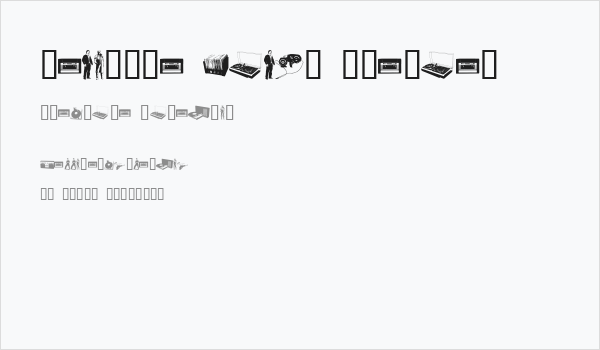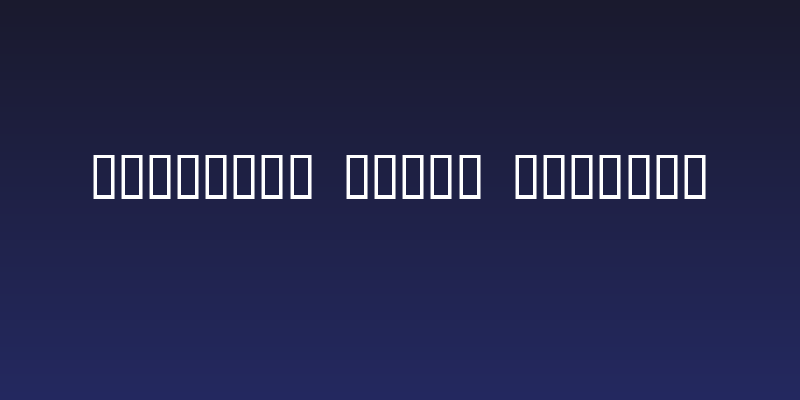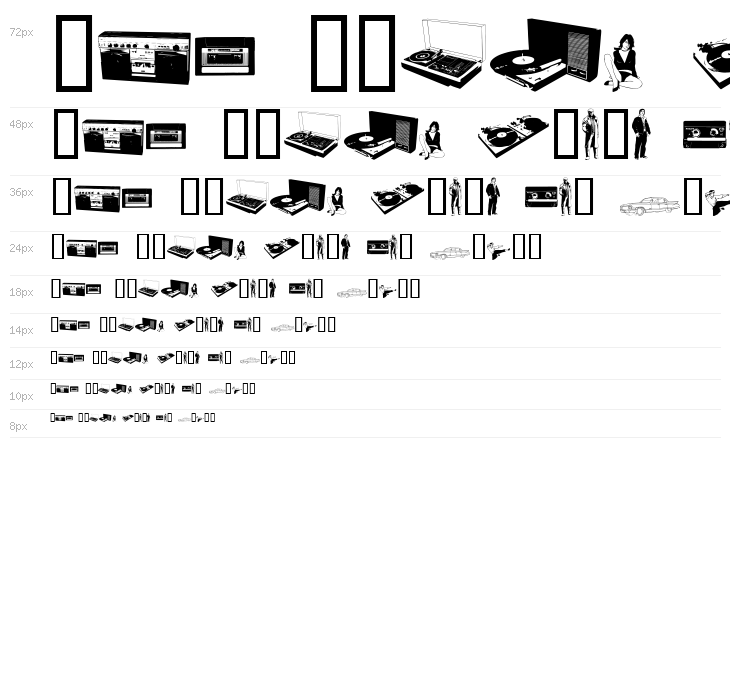
Fenotype dings preview Font
Fenotype dings preview Description
| Overall Style | Vintage, Decorative |
| Use Case | Decorative icons, Themed graphics, Posters |
| Proposed Projects | Music event posters, retro album covers, themed party invitations, vintage-style branding, decorative elements for flyers. |